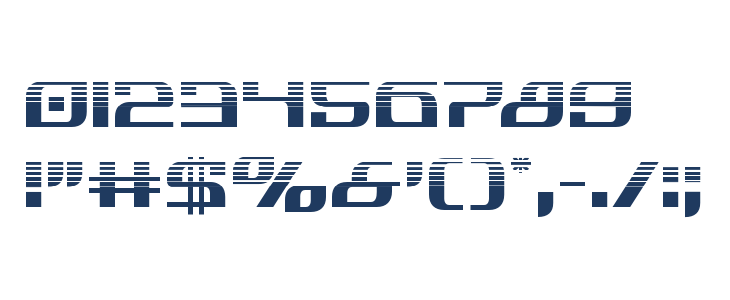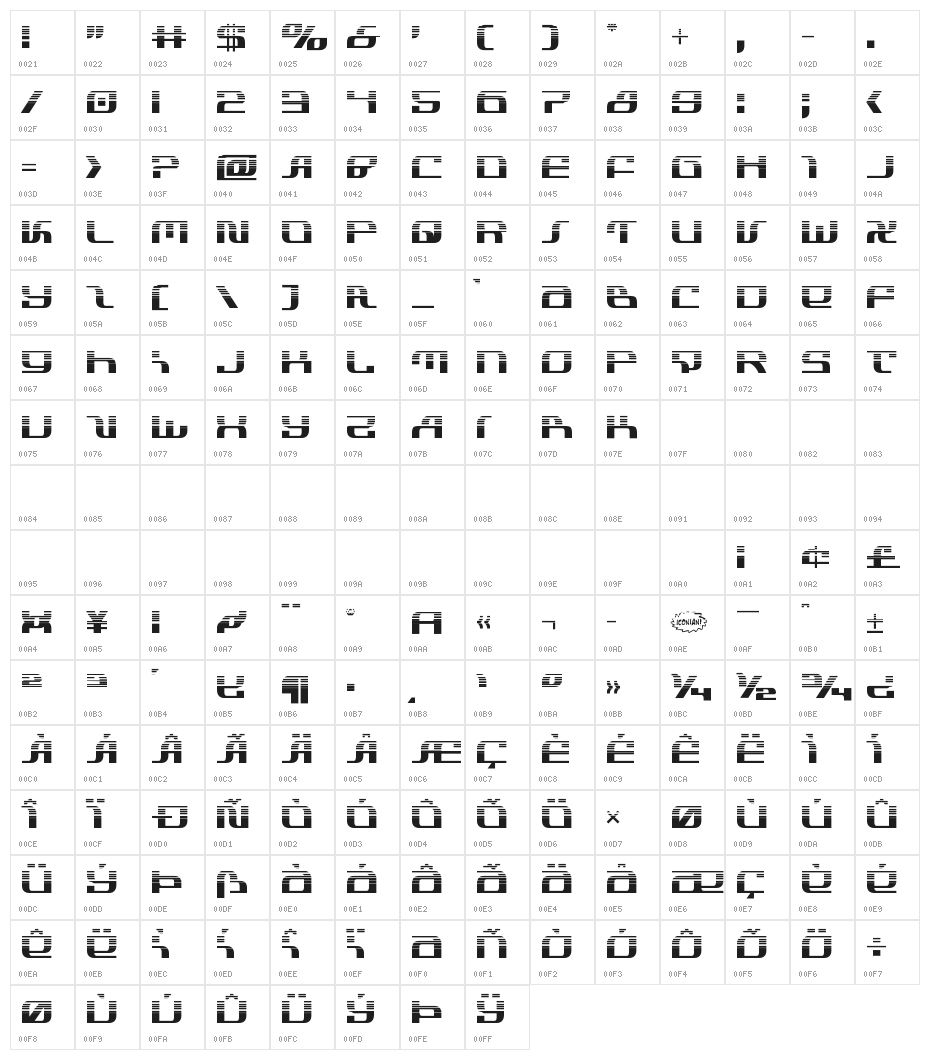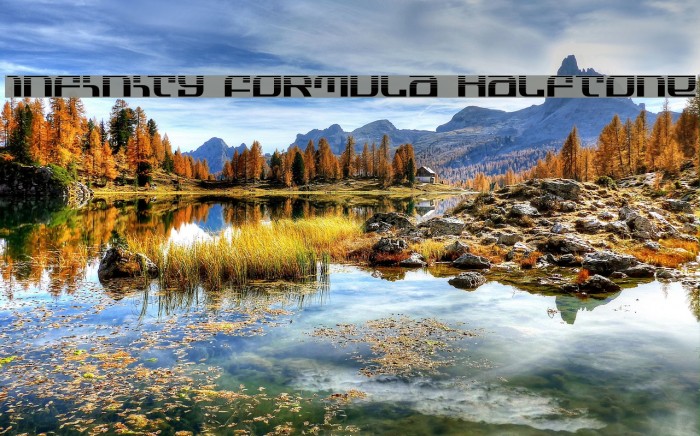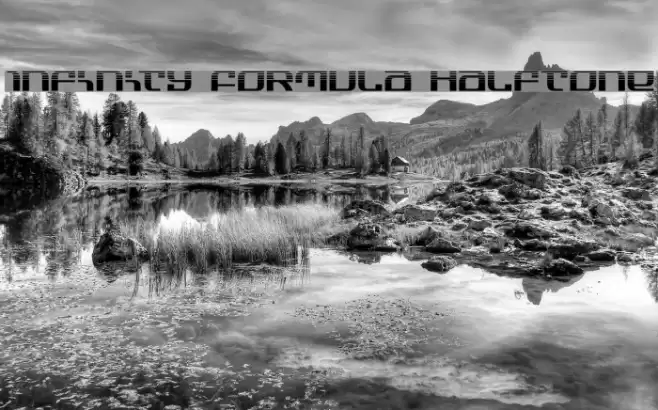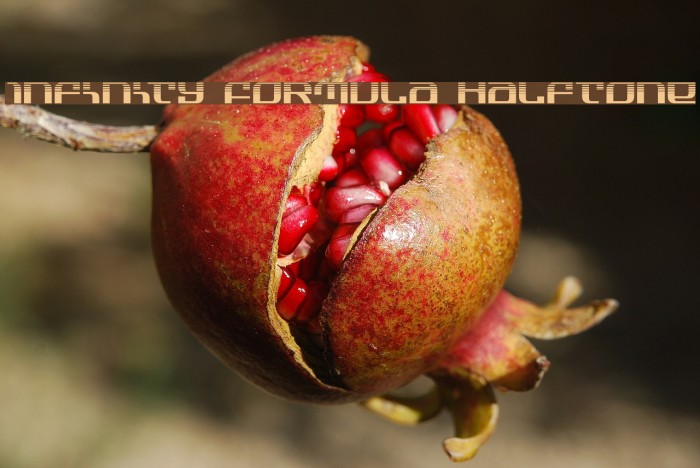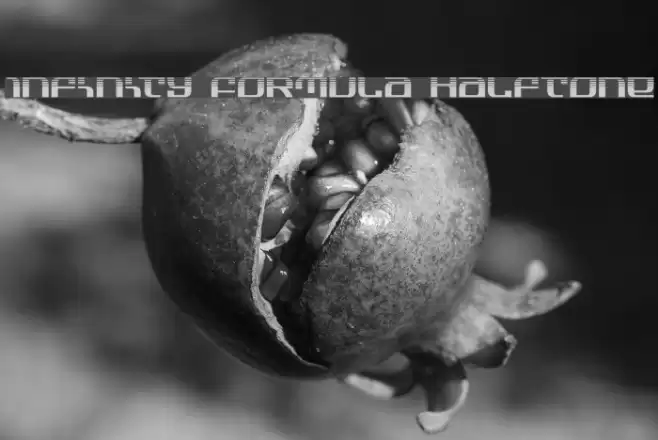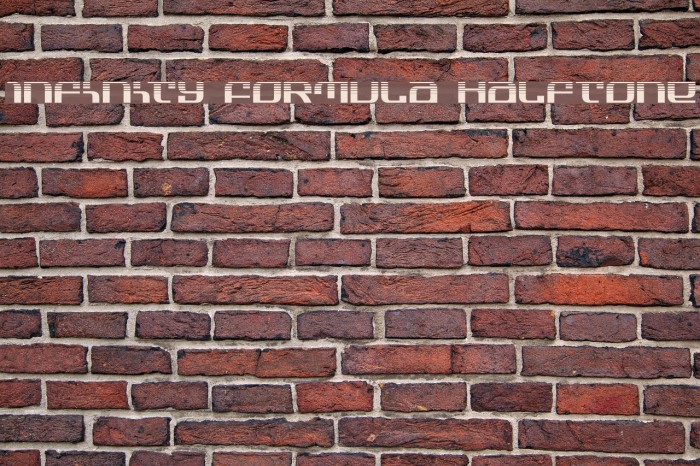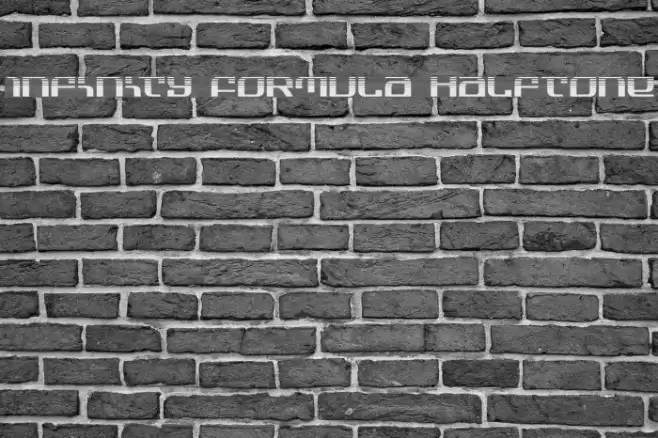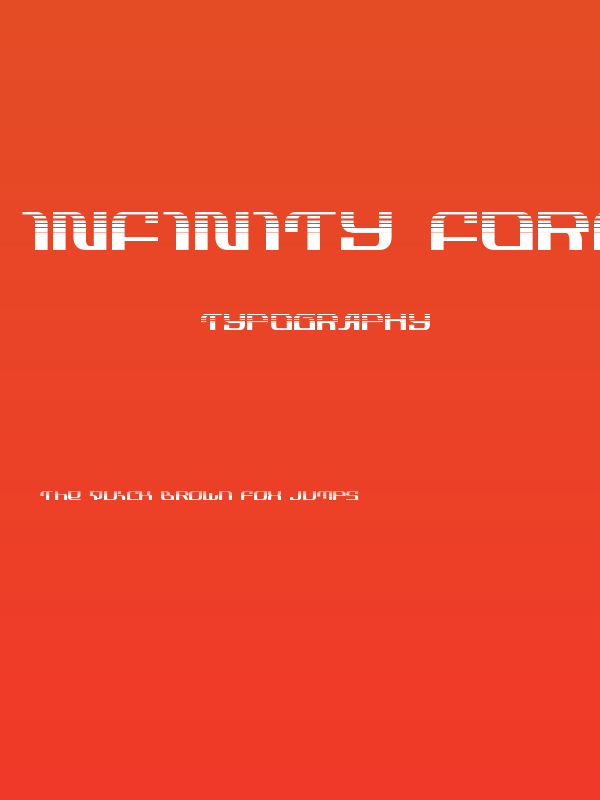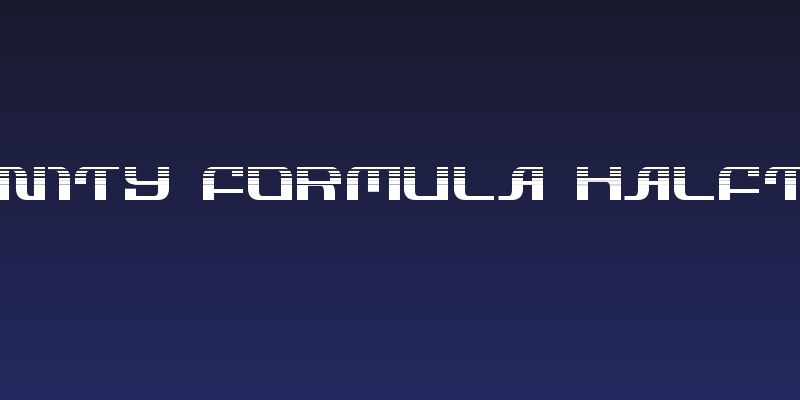
Infinity Formula Halftone Font
Infinity Formula Halftone Description
This font features a futuristic and digital aesthetic, characterized by its unique halftone pattern integrated into each character. The design incorporates horizontal lines that create a sense of movement and rhythm, giving it a dynamic and modern look. The characters are bold and geometric, with a consistent width that maintains readability while adding a distinct visual flair. The font's style is reminiscent of digital displays or sci-fi themes, making it ideal for projects that require a cutting-edge and innovative appearance.
| Proposed Projects | Ideal for sci-fi themed posters, digital art projects, video game graphics, and technology branding. |